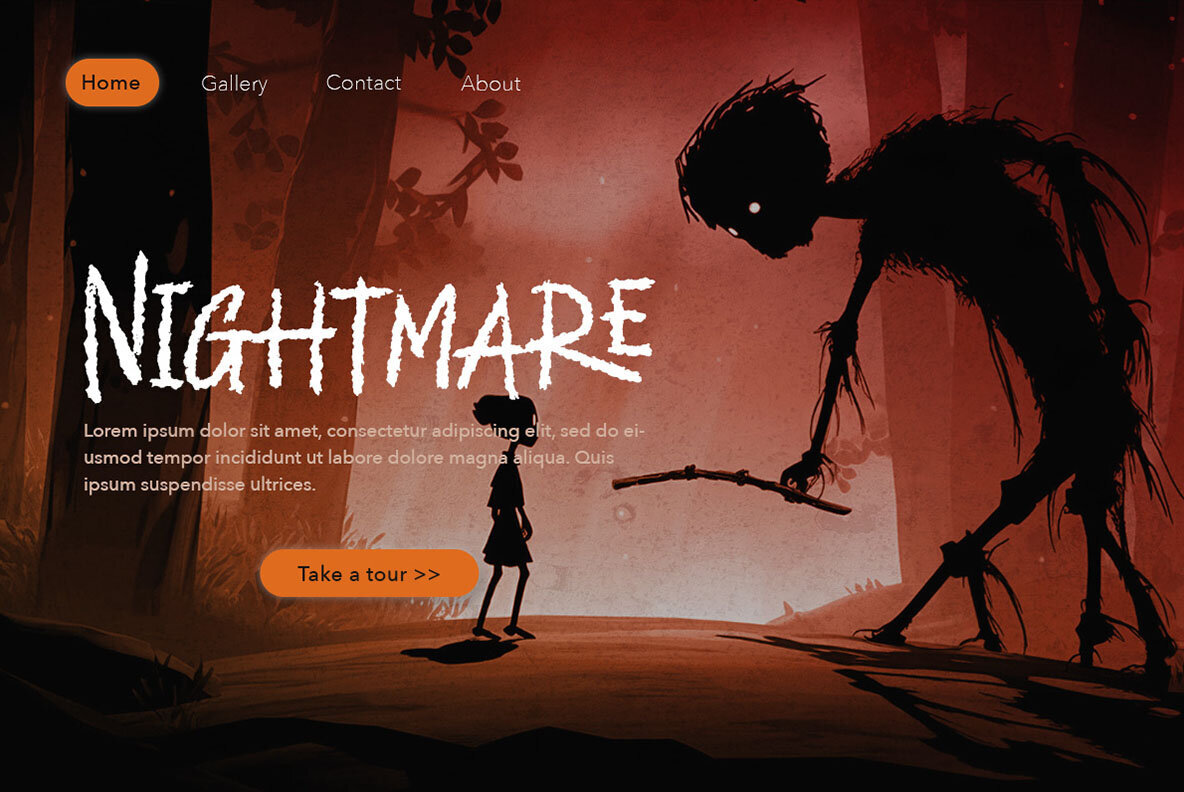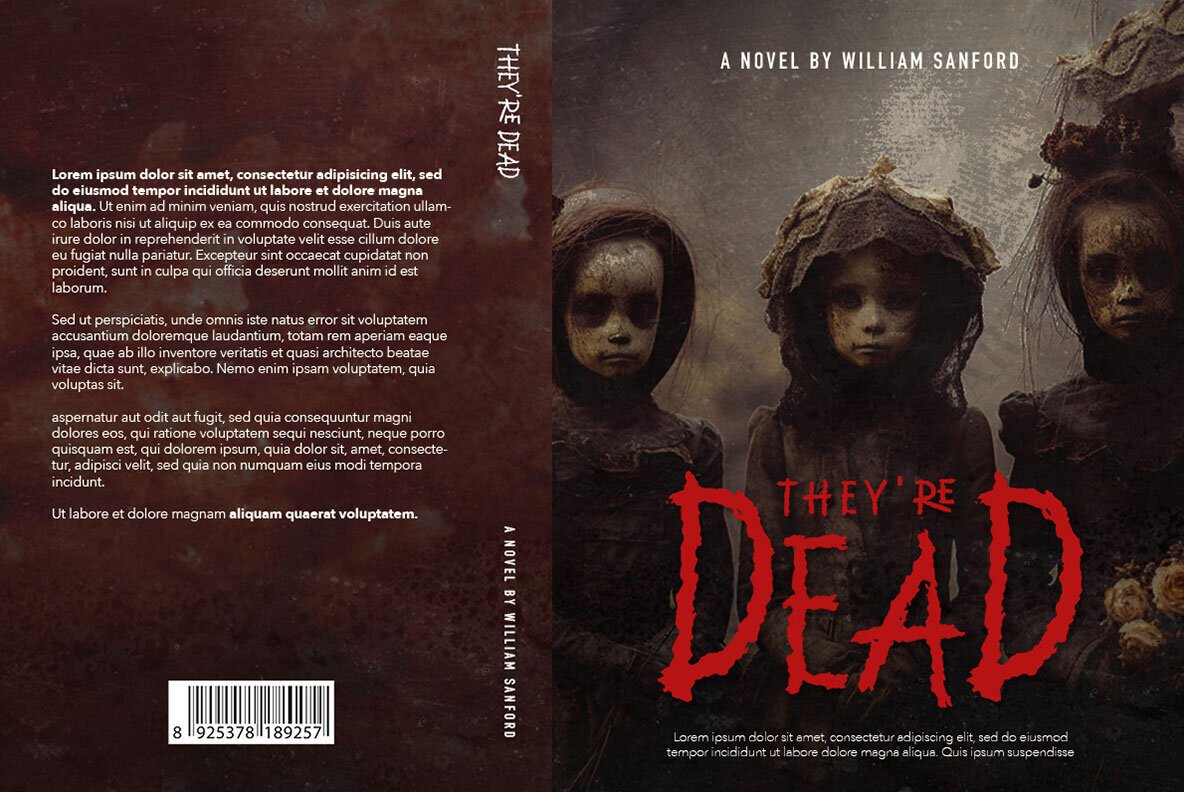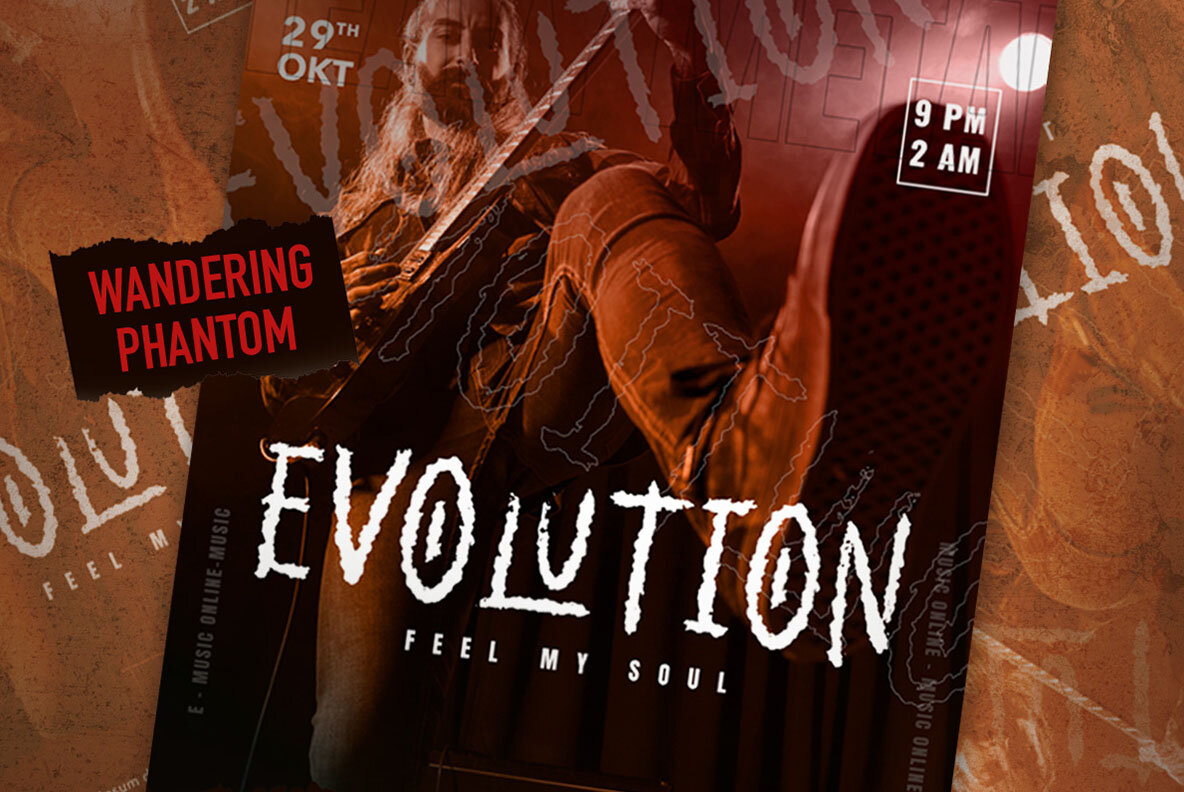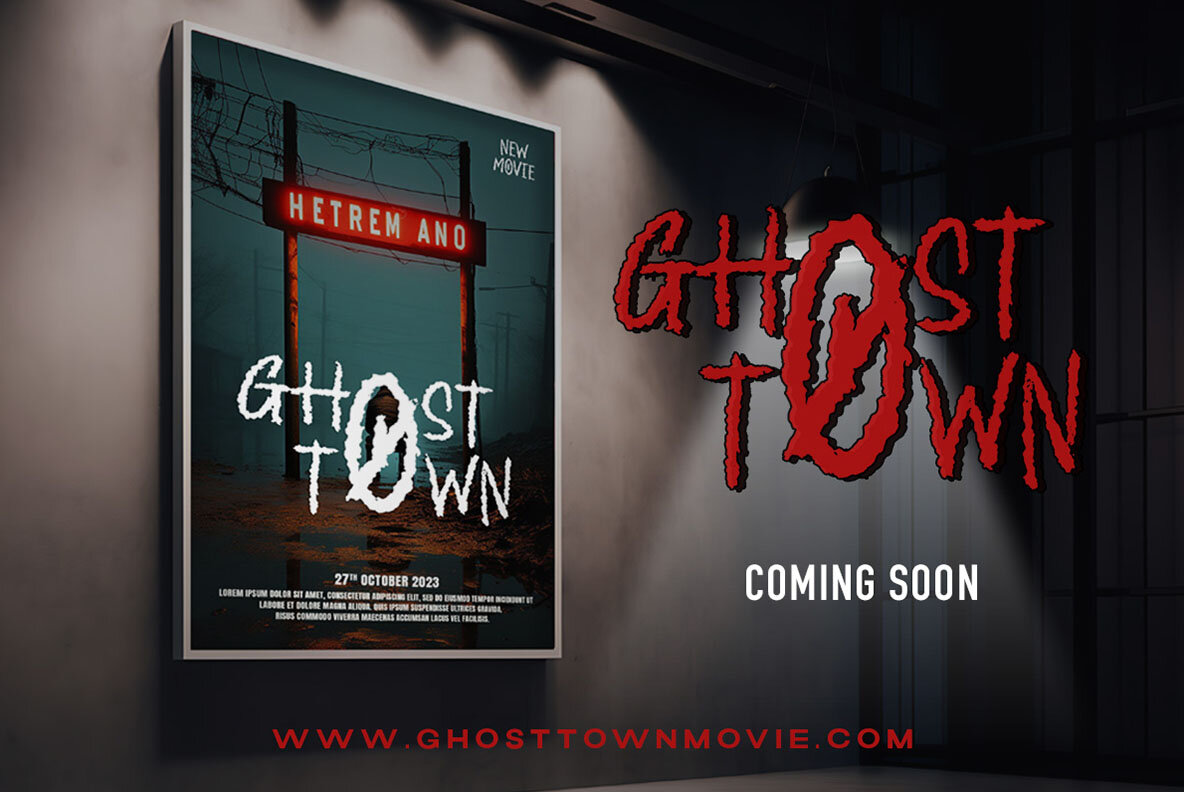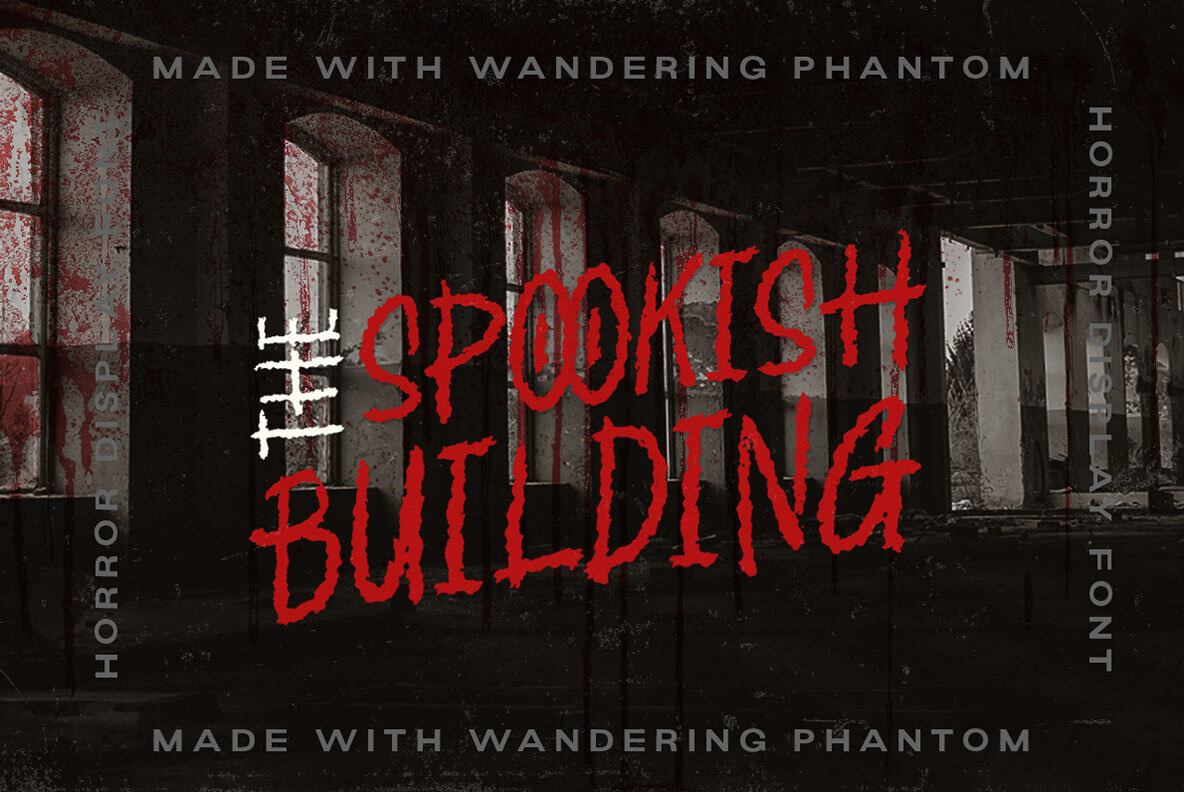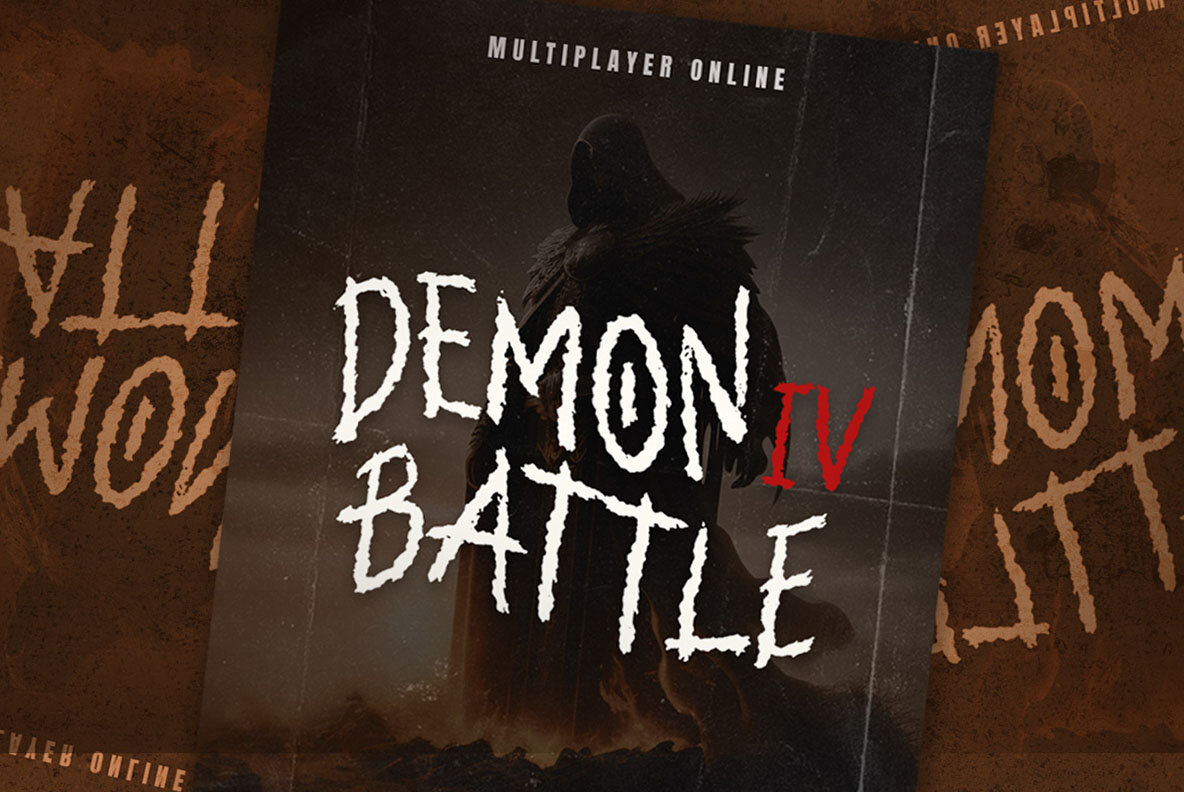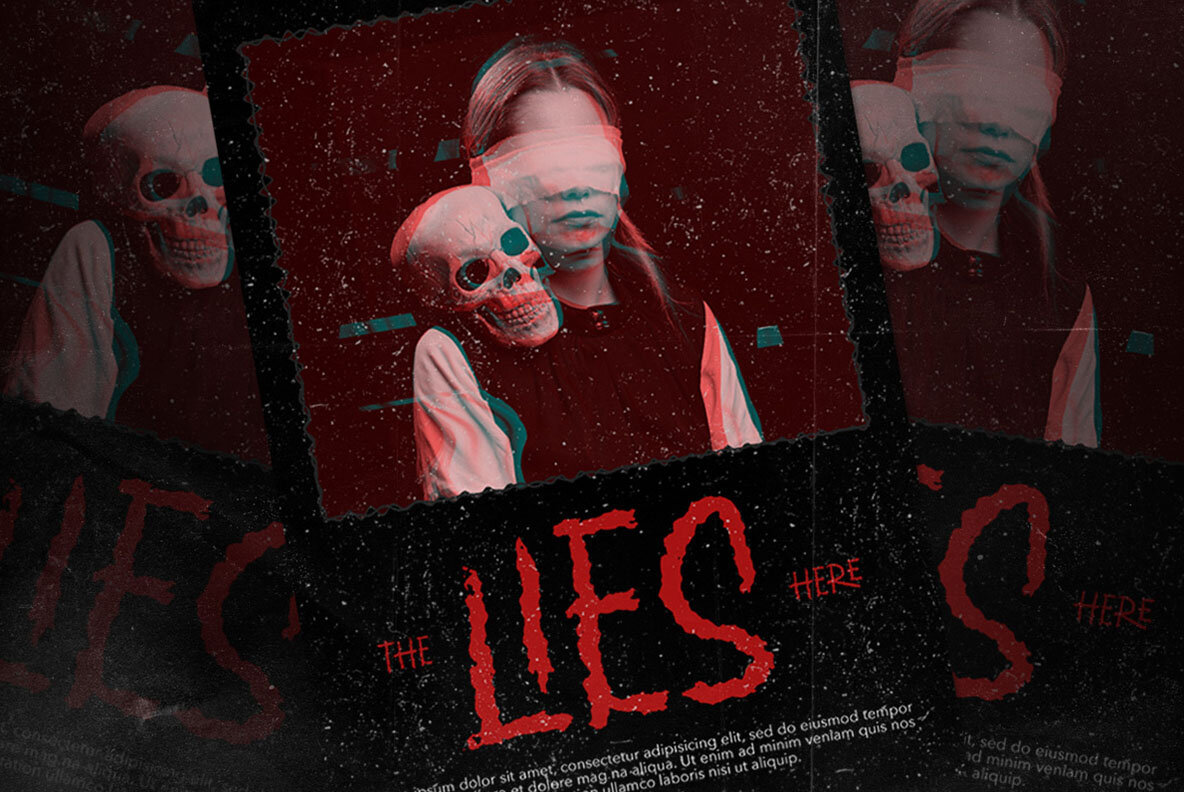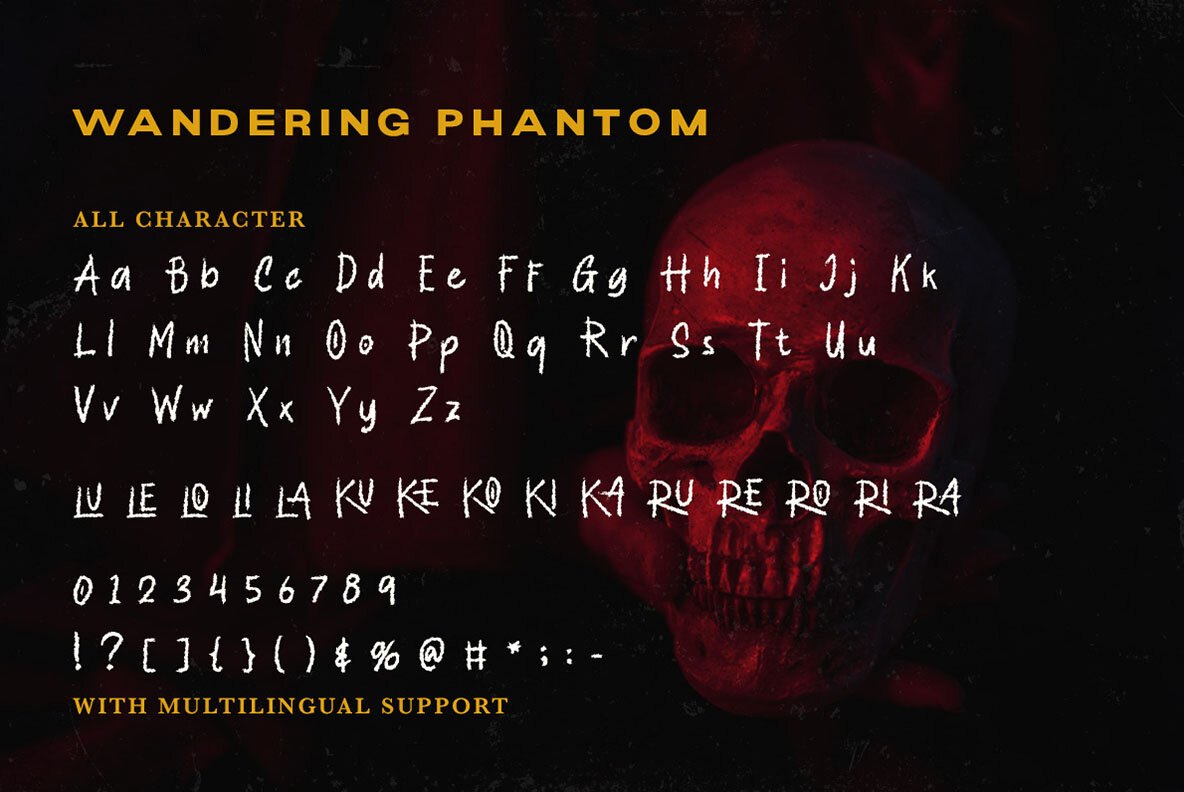
Wandering Phantom Font
Wandering Phantom Regular
Wandering Phantom is a captivating font that immerses you in an atmosphere of terror and mystery. Perfect for creating horror visuals or adding an air of eerie sophistication, its versatility knows no limits.Wandering Phantom: A Font of Haunting Elegance